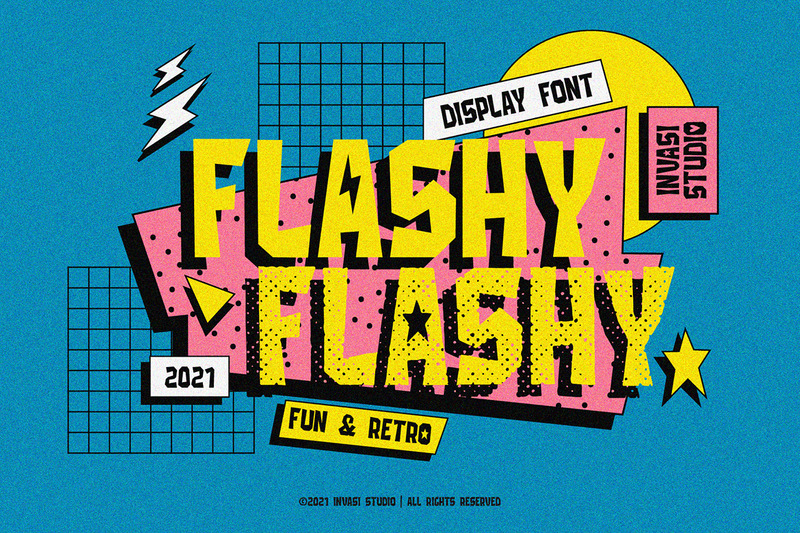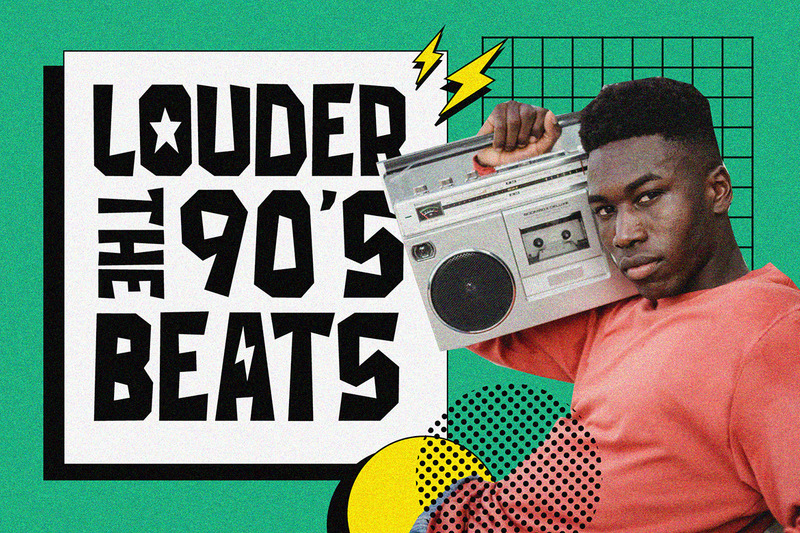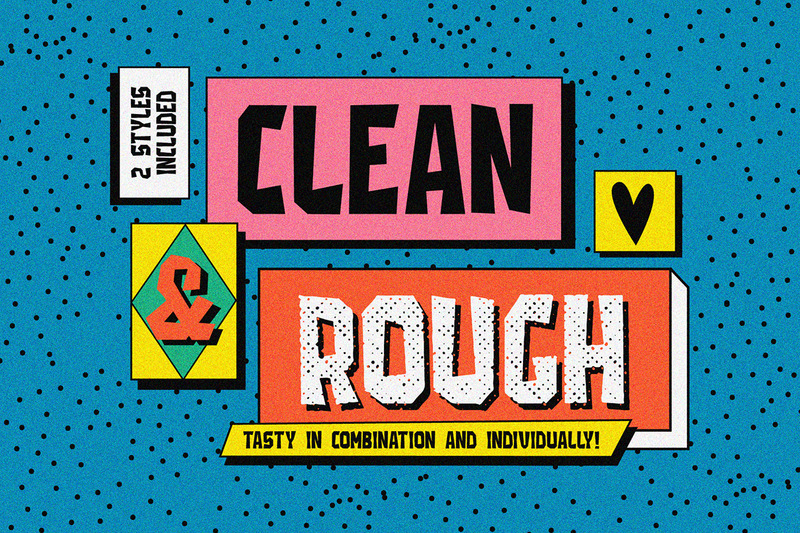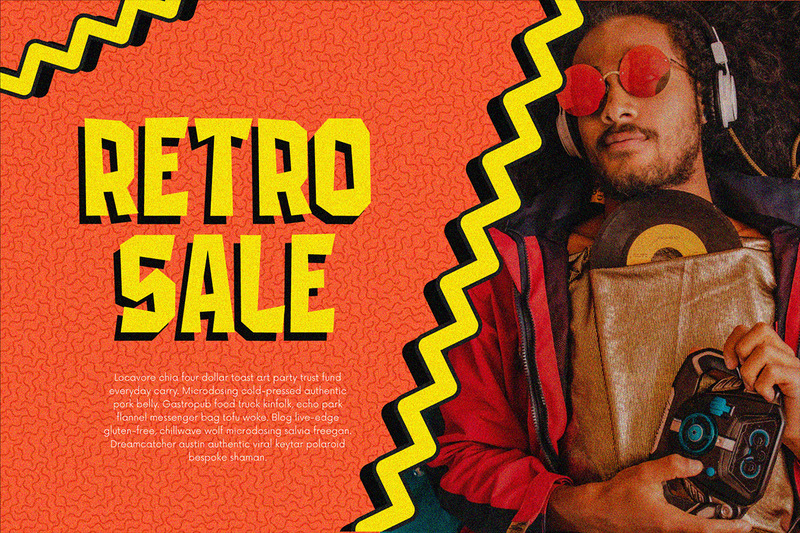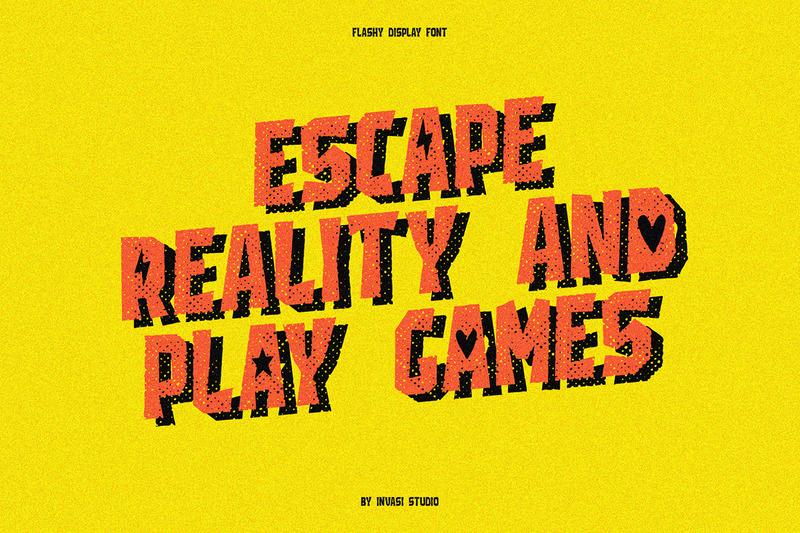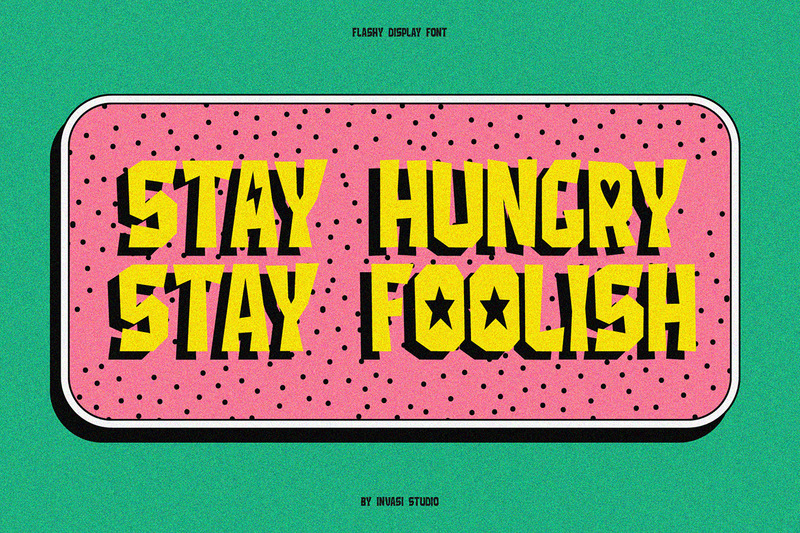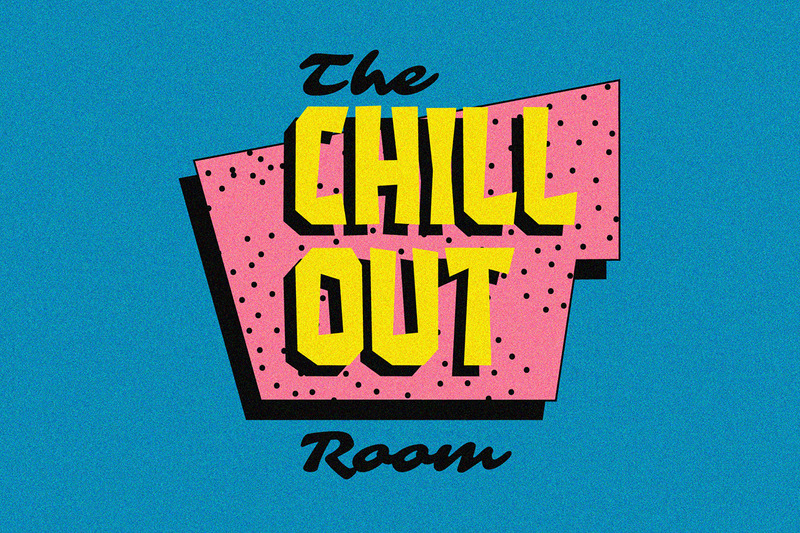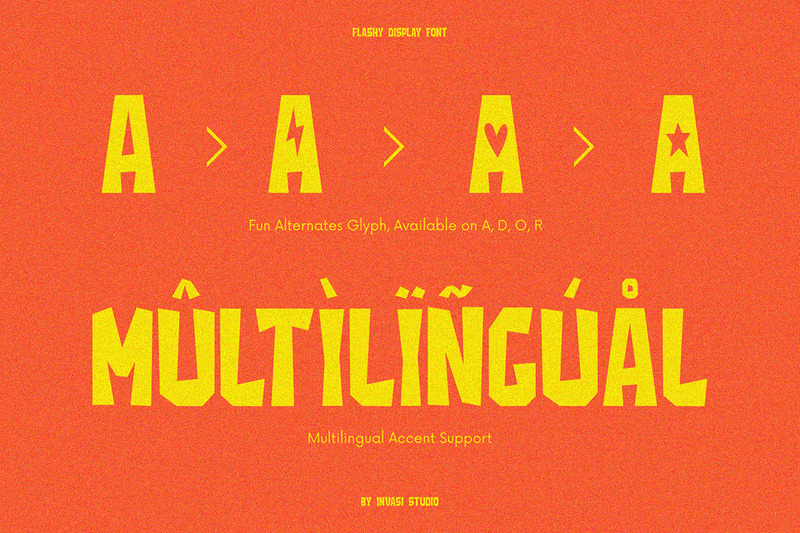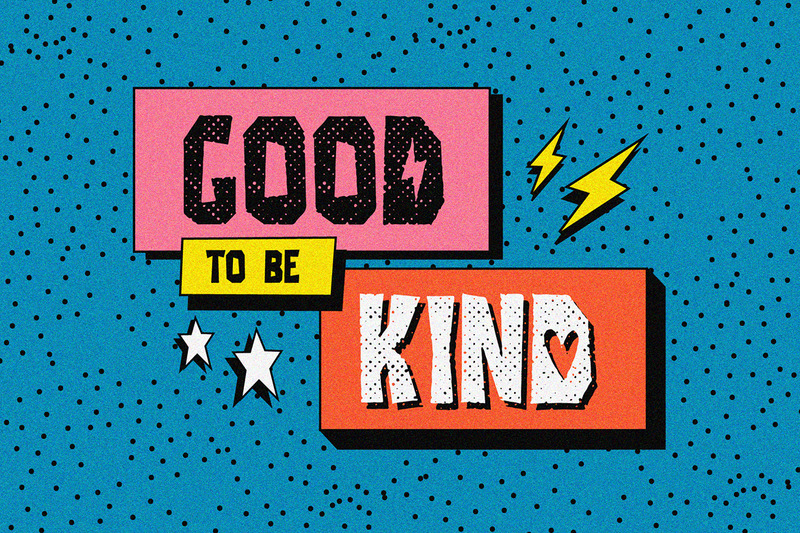
Flashy | Retro & Fun Font
The flashy font is a fun, cool, and retro style. Come with a fun alt glyph, it can easily be matched to an incredibly large set of projects, so add it to your creative ideas and notice how it makes them stand out!
This font is perfect for headings, flyers, greeting cards, product packaging, book cover, printed quotes, logotype, apparel design, album covers.
Features:
• Multilanguage
• Alternates
• Punctuation